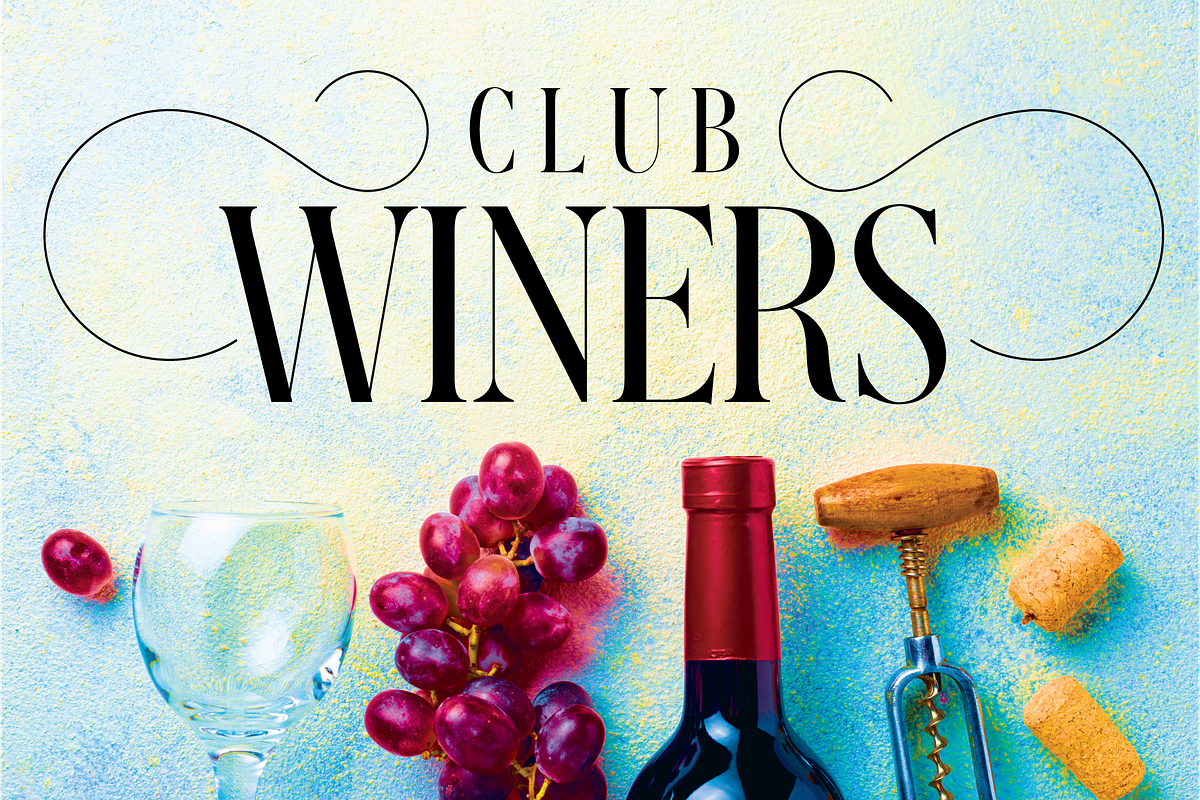
Club Winers font Free Download
Club Winers Font Free Download
The Club Winers Font Free Download is a bold and stylish typeface that brings a modern, urban vibe to your designs. With its unique letterforms and clean lines, this font is perfect for creating striking logos, posters, branding materials, and social media graphics. Its contemporary design ensures that your typography stands out with a sleek and confident look. Whether you're designing for a trendy brand, nightlife events, or fashion, Club Winers Font will add a dynamic, professional feel to your projects. Please note, for commercial use, a license purchase is required. However, you can easily download the Club Winers Font Free Download for free for personal use and test its impact in your designs. Download the Club Winers Font Free Download today and elevate your creative work with this modern, stylish typeface.